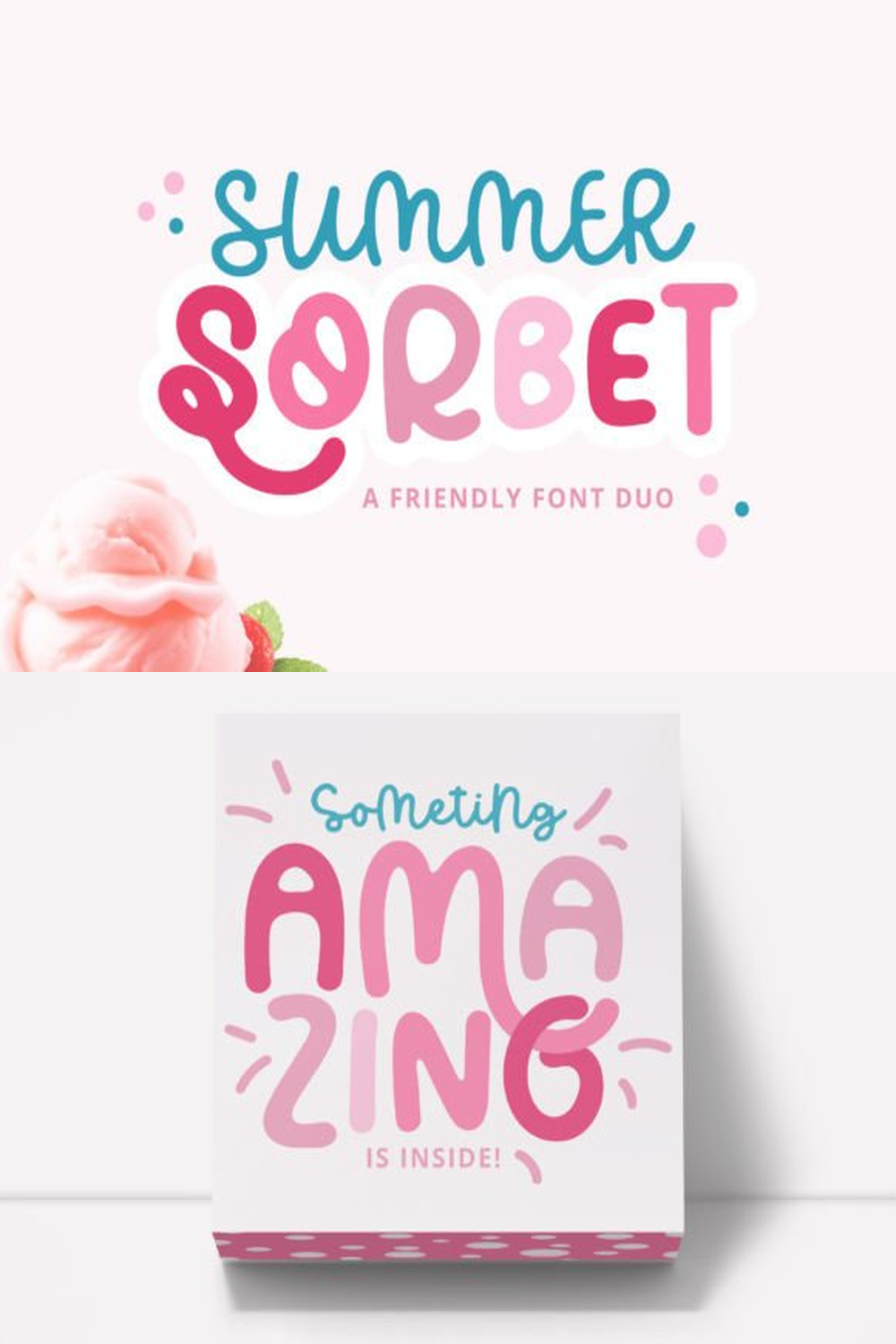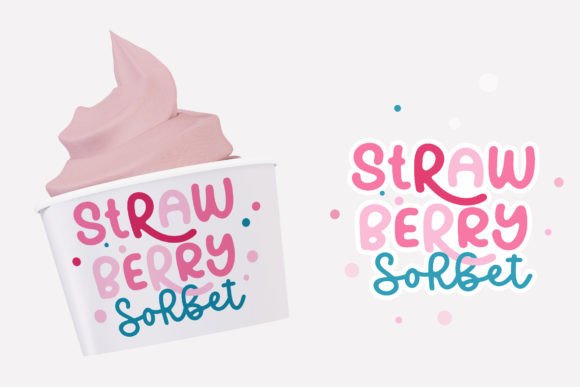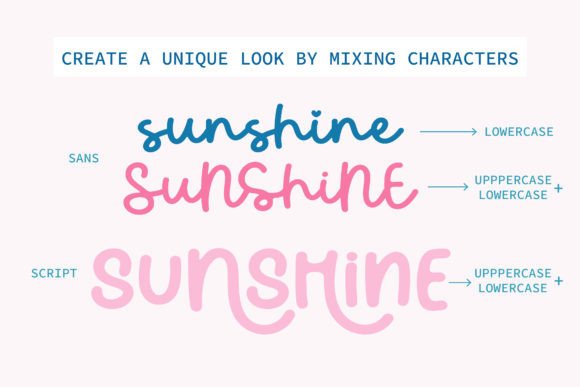
Summer Sorbet Font: Groovy Script & Display Font for Cute Designs
About the Summer Sorbet Font
Introducing the Summer Sorbet Font, a beautifully crafted typeface designed to elevate your creative projects. Summer Sorbet is a friendly duo font (display and script). It is perfect for any hippie design that requires a groovy look and it’s guaranteed to make an impact.